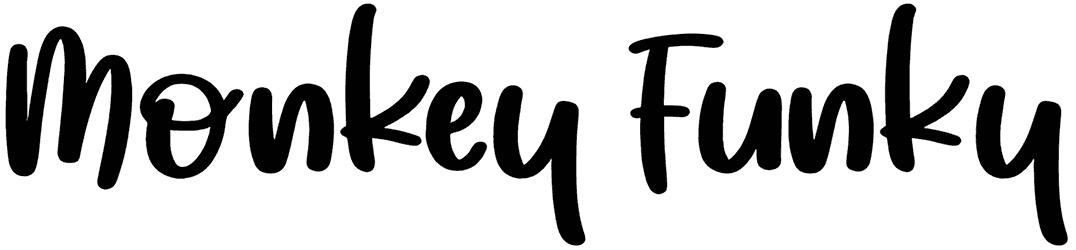
Monkey Funky Font
You may add a sophisticated yet laid-back vibe to your digital artwork with the help of the Monkey Funky font. This script, playful font is great for creating an eye-catching design in a variety of settings, including books, apps, advertisements, and flyers, where a relaxed and informal appearance is desired. Give this font a try if you’re up for a challenge and want to impress your customers.